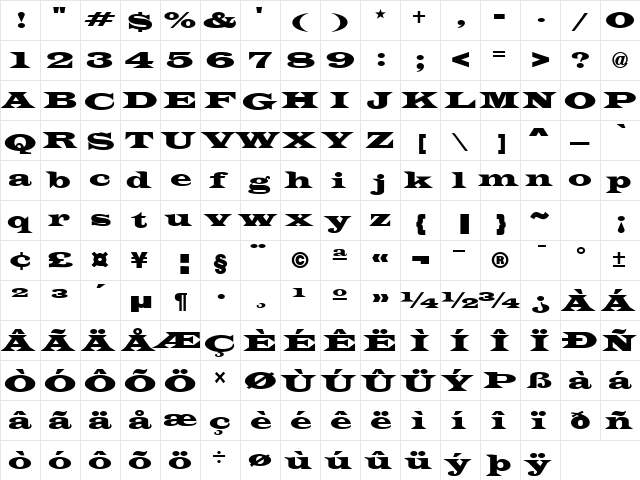
PT Broadcast Normal
Design Context for PT Broadcast Typeface
PT Broadcast is a composed and adaptable typeface that performs quietly and consistently across a wide range of design contexts.